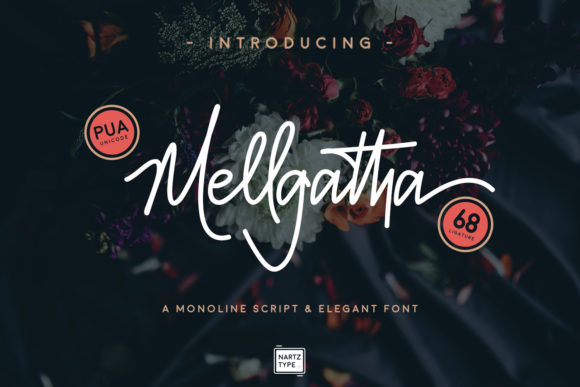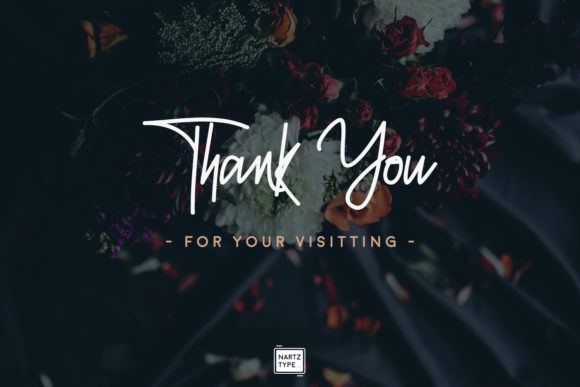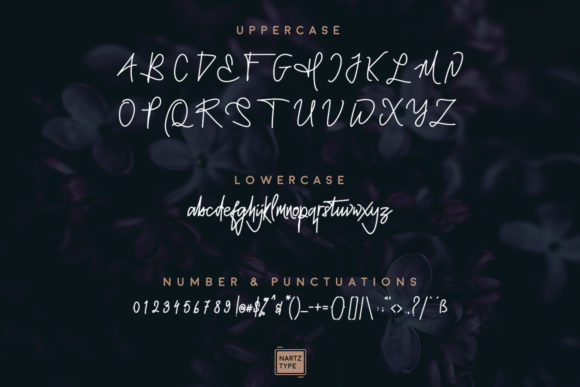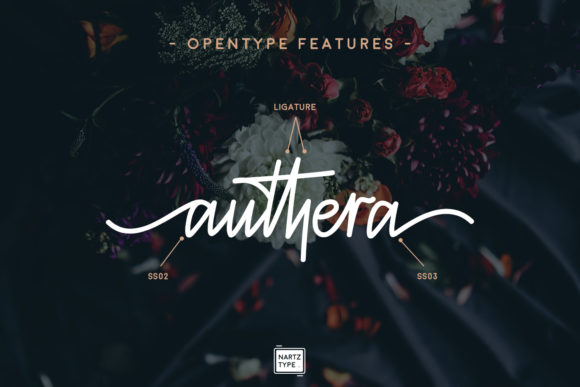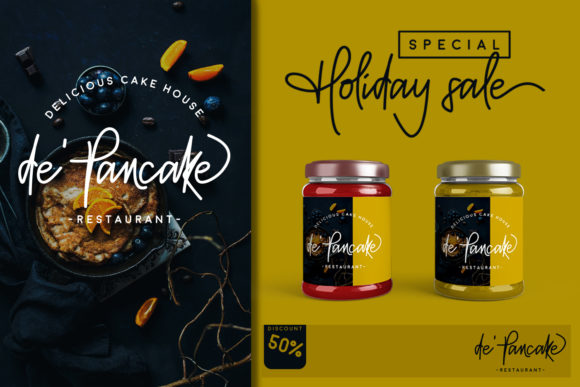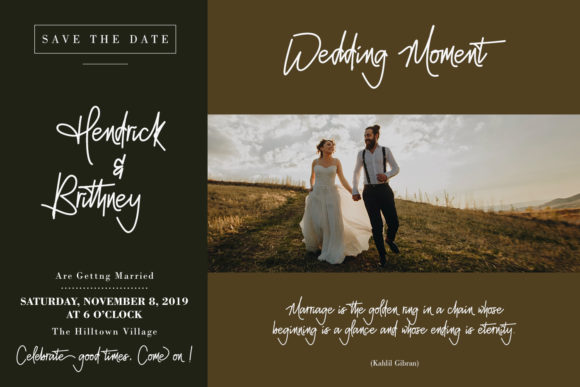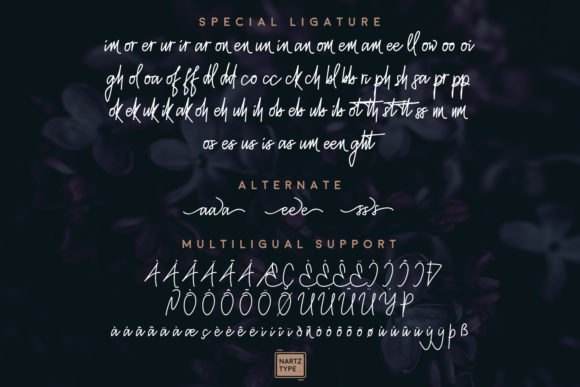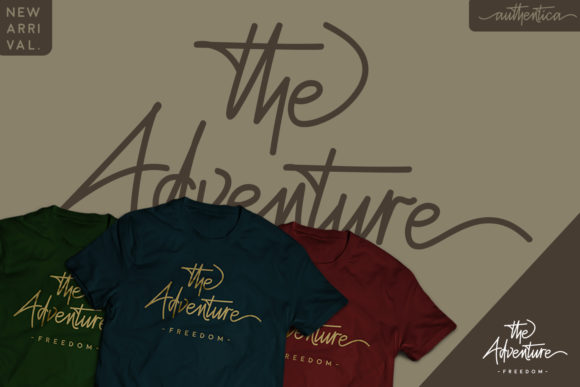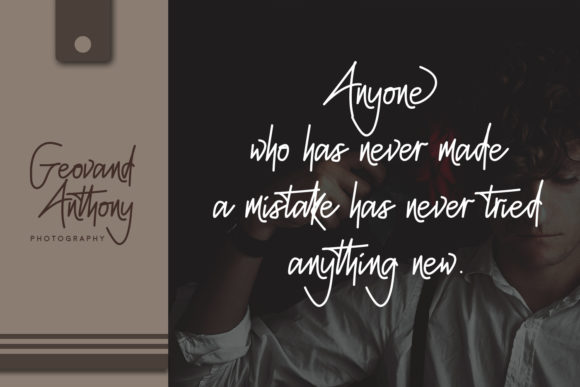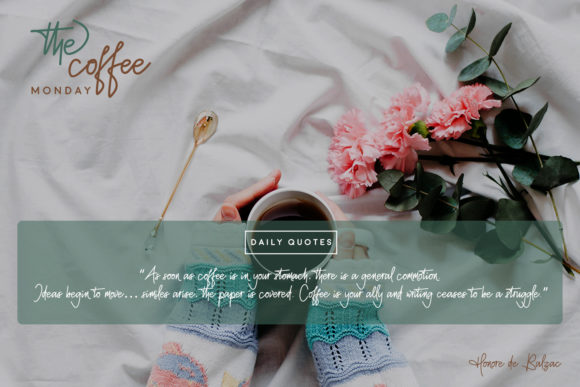
Mellgatha Font
About Mellgatha Font
Mellgatha is an incredibly stunning and beautiful handwritten font with beautiful swashes. It will turn any design creation into a true stand out!